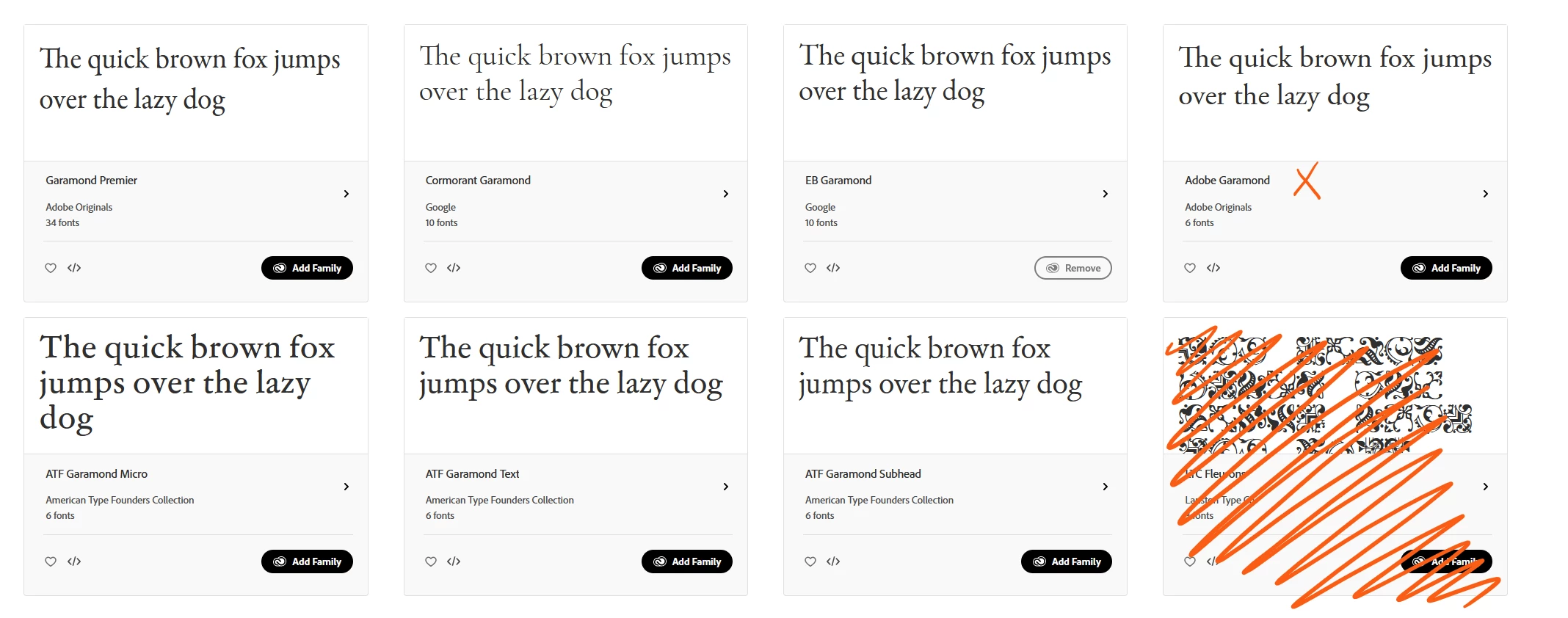
These are the Garamond fonts that you can sync on Adobe Fonts. There are many more versions of Garamond around, including a type 1 version that is still around on some computers and that is no longer supported by Adobe software (and other ones too) anymore.
It's an old typeface and I guess the design is a bit in the public domain now, so all these reworks are evolution of the same base that was invented 400 years ago, and you even have free versions of it (EB Garamond). You just need to be careful, as some can have "funky" characters, particularly when set in italics.